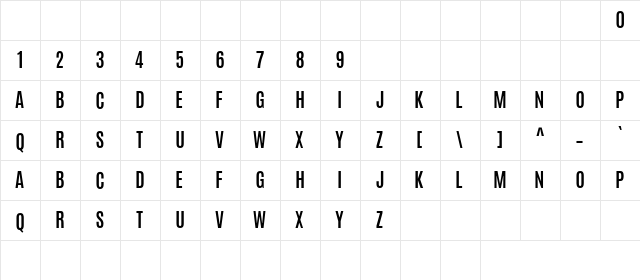
Ioannina Regular
| Foundry | Shanaya Creative |
| Designer | Naya |
Design Context for Ioannina Typeface
Ioannina is a composed and adaptable typeface that performs quietly and consistently across a wide range of design contexts.